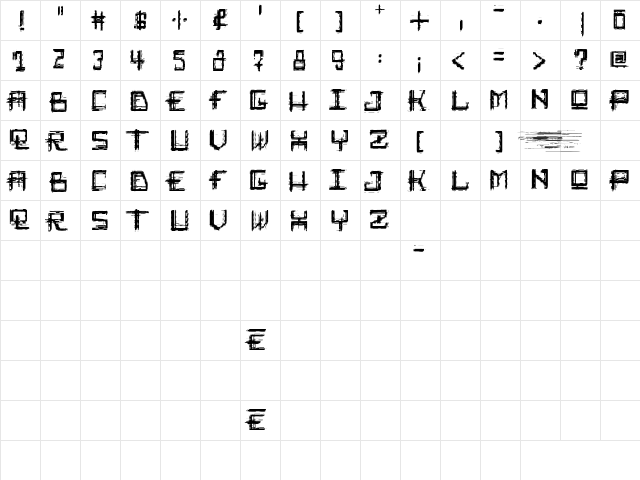
Rabid_Science Regular
Design Context for Rabid_Science Typeface
Rabid_Science is a composed and adaptable typeface that performs quietly and consistently across a wide range of design contexts.